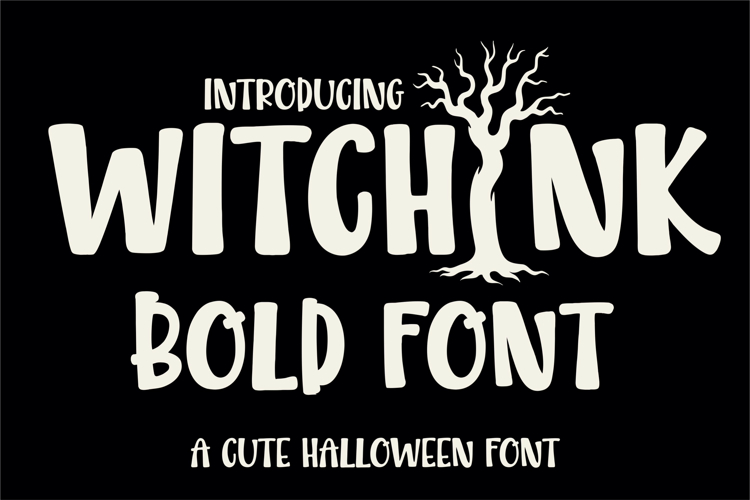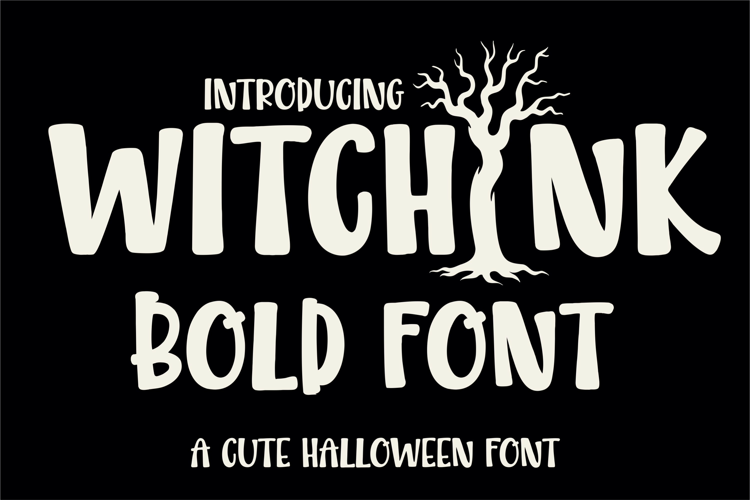
Witchink Bold Cute Halloween Font for Spooky Crafts
Witchink Bold is a playful Halloween display font perfect for bold, spooky, and fun creations. With its chunky, rounded letters and hand-drawn charm, this typeface adds a whimsical touch to Halloween t-shirts, party invites, posters, treat bags, and digital crafts. The font includes uppercase and lowercase letters, numbers, punctuation, and multilingual support. It pairs beautifully with your seasonal clipart or illustrations, and it’s ideal for Cricut and Silhouette cutting machines, printable projects, and Procreate lettering. Whether you're creating designs for kids or adding a fun twist to adult Halloween parties, Witchink Bold brings cute and spooky together in one festive font. Designed by Tonis Art Studio, it's part of the Witchink font family for maximum versatility!